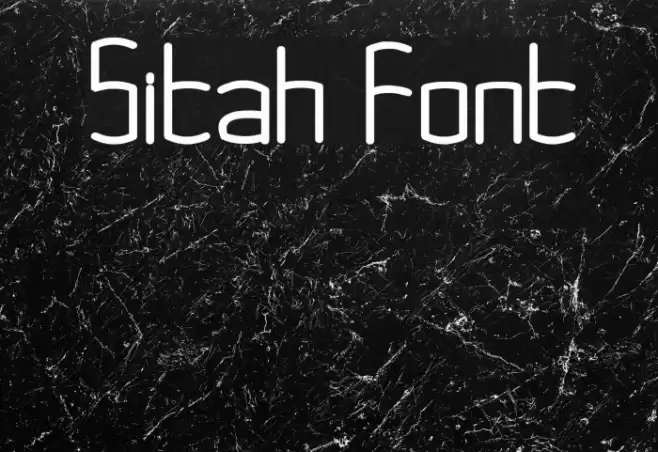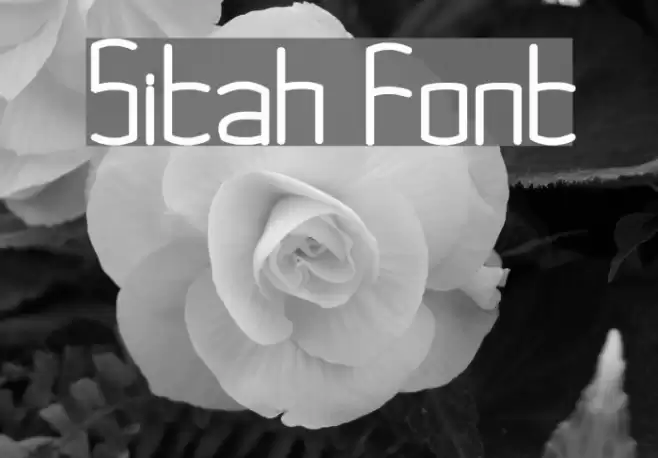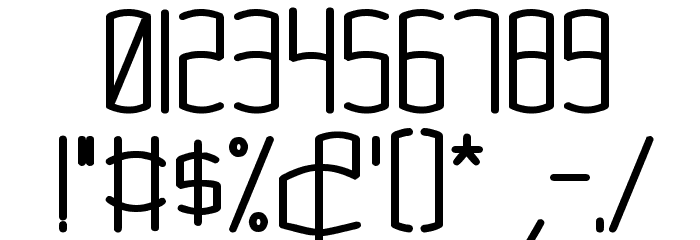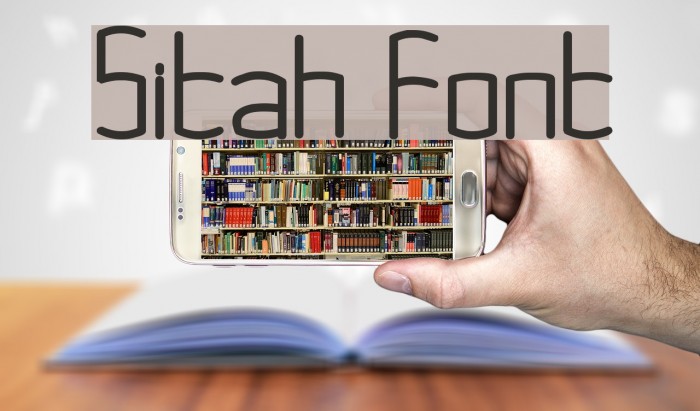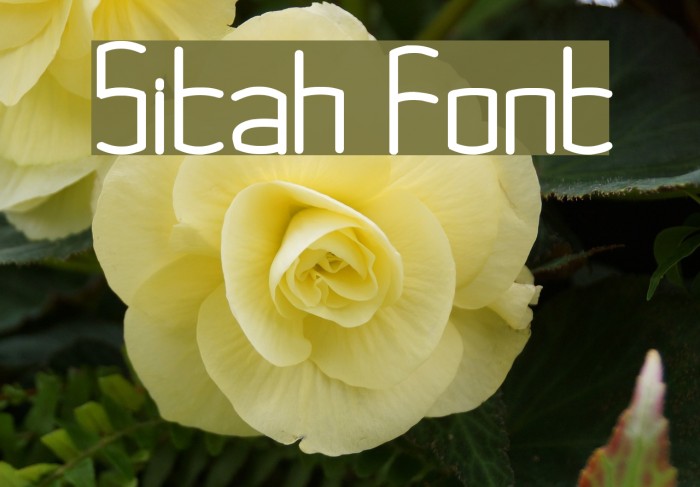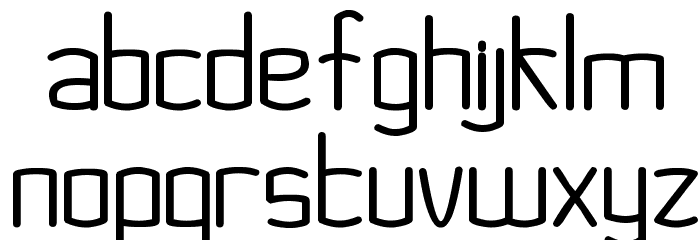
Sitah Font
Sitah Description
This font features a clean, geometric design with rounded edges, giving it a modern and approachable appearance. The uniform stroke width across all characters contributes to its minimalist aesthetic. Uppercase and lowercase letters maintain a consistent height, enhancing readability. The numerals are straightforward and align well with the overall style, making them easy to distinguish. Special characters are designed to match the font's geometric theme, ensuring a cohesive look across all text elements. This font's simplicity and clarity make it versatile for various design applications.
A modern, geometric font with rounded edges and uniform stroke width from Uncategorized fonts.